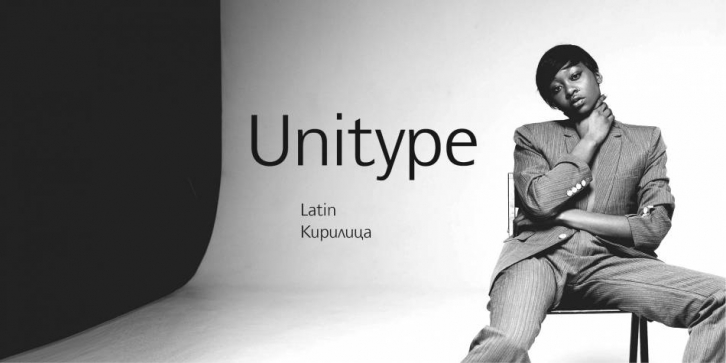
Designed by Jivko Stankulov, Unitype is a sans serif font family. This typeface has eight styles and was published by Context Ltd.
Unitype is a humanistic sans serif font of a modern type, influenced by handwriting and calligraphy. It consists of 4 weights and corresponding italics. Unitype is suitable for body texts; for titles; for corporate identity.
Unitype continues the design of UniEType, designed in 1994 by Jivko Stankulov. In compare to UniEType the new font family Unitype has more glyphs and cover more languages. A number of shortcomings in the construction of the glyphs have been eliminated, and the design as a whole has been updated.